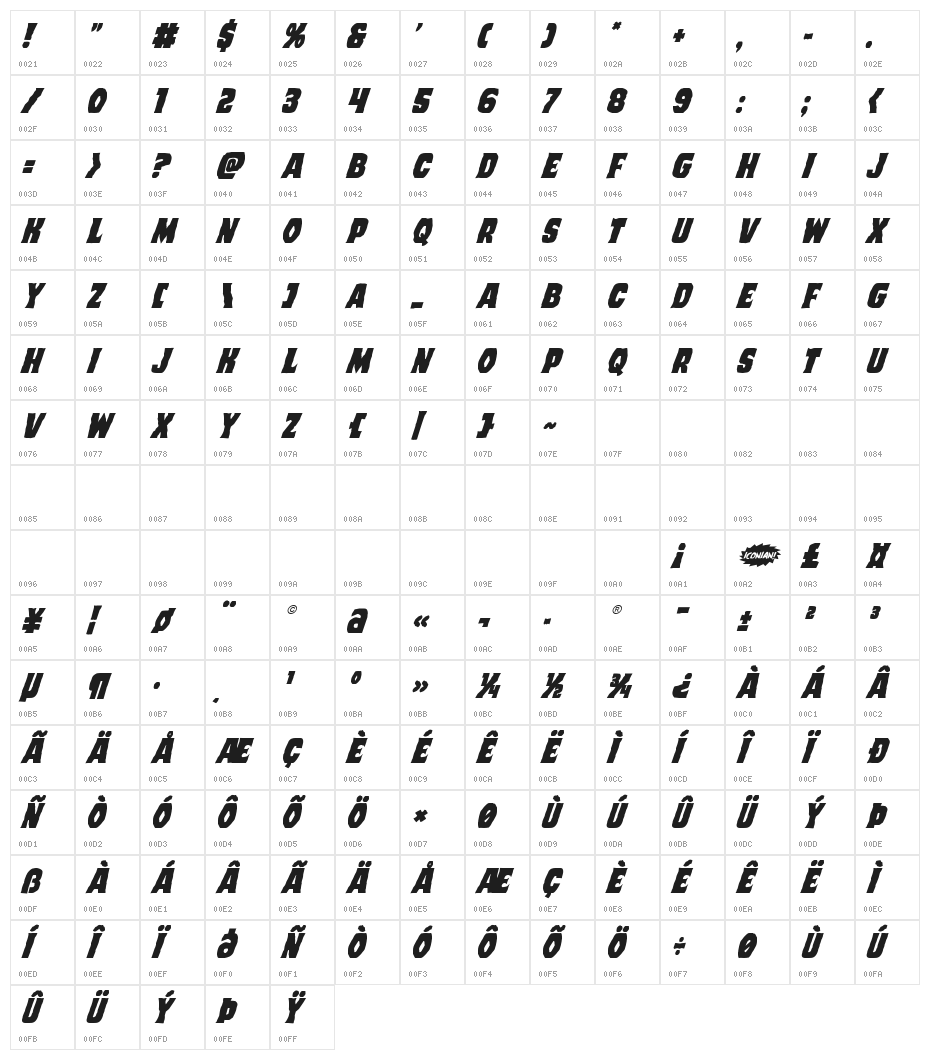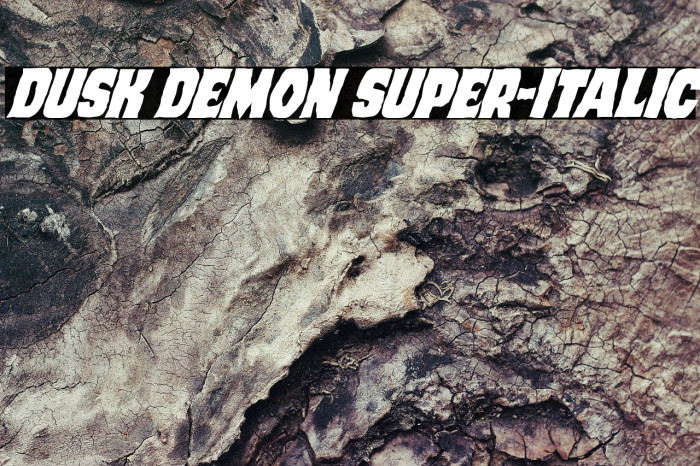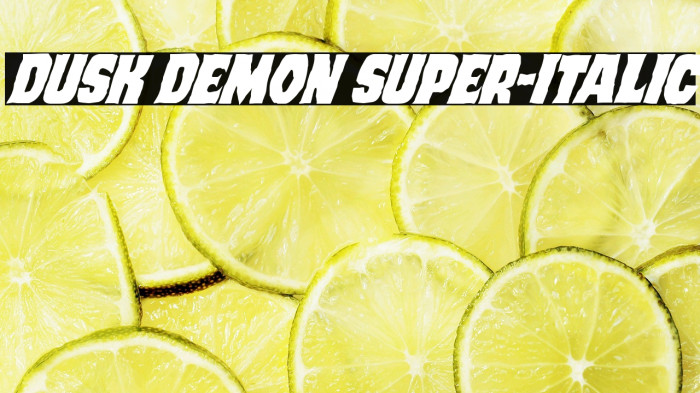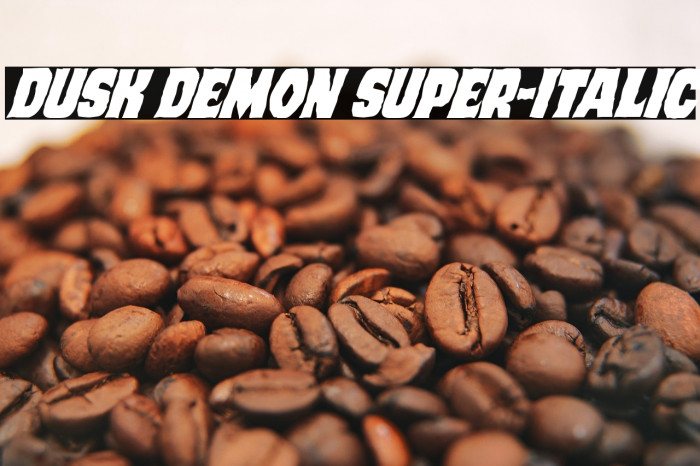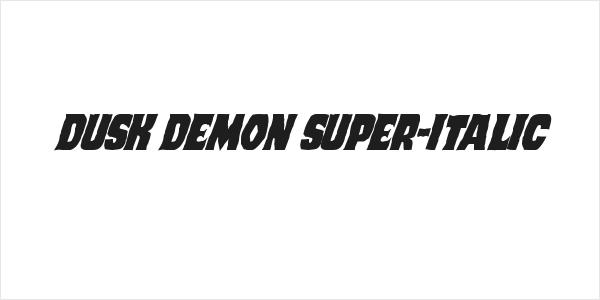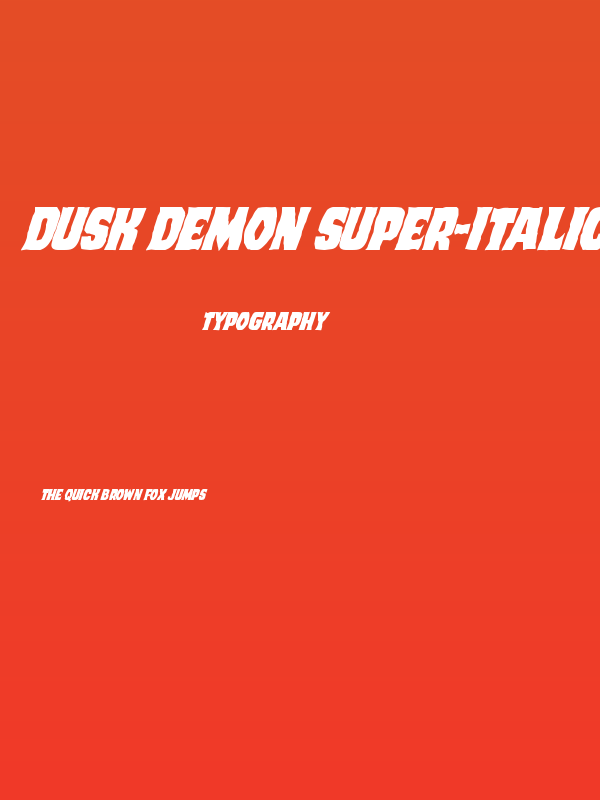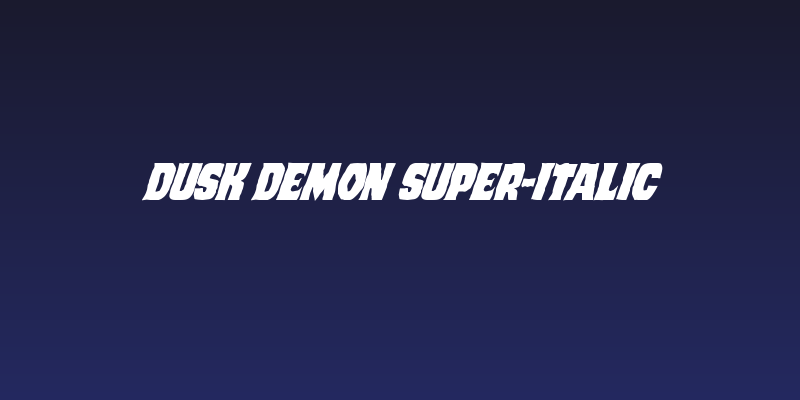
Dusk Demon Super-Italic Font
Dusk Demon Super-Italic Description
This font features a bold and dynamic style with a strong italic slant, giving it a sense of motion and energy. The characters are thick and robust, with sharp edges and a slightly condensed form. The uppercase and lowercase letters maintain a consistent style, while the numerals and special characters are designed to match the overall aesthetic. The font's aggressive and powerful appearance makes it suitable for attention-grabbing designs.